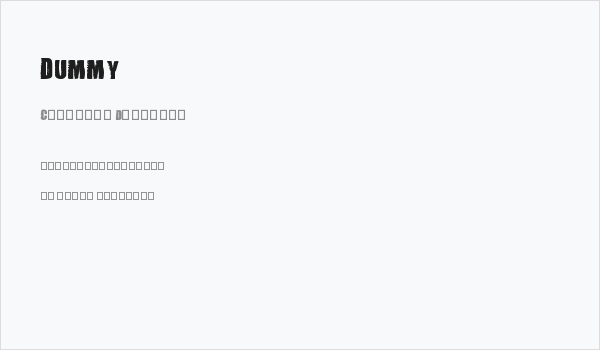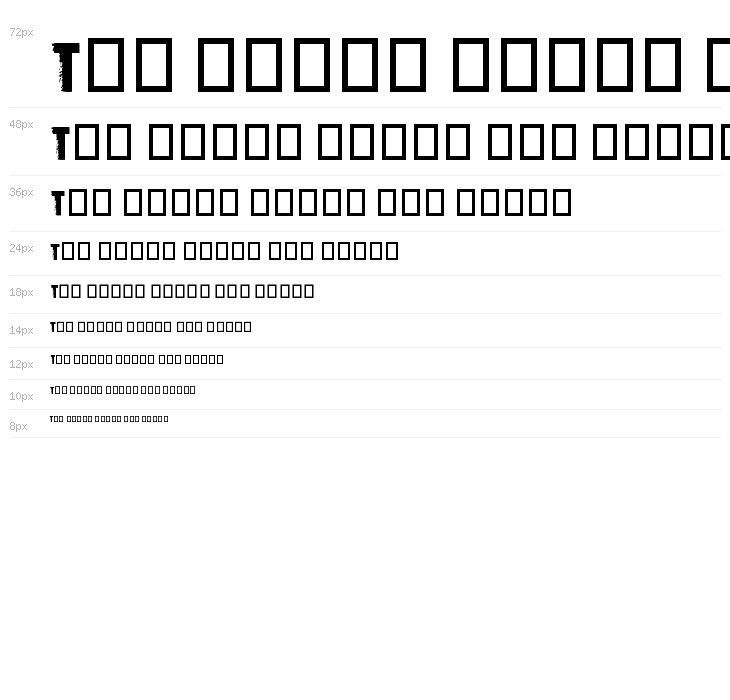
DUMMY Font
✎ Distorted Eroded
| 分类 | Distorted Eroded |
| 整体风格 | Vintage |
| 推荐项目 | Ideal for posters, album covers, and branding materials with an edgy or vintage theme. |